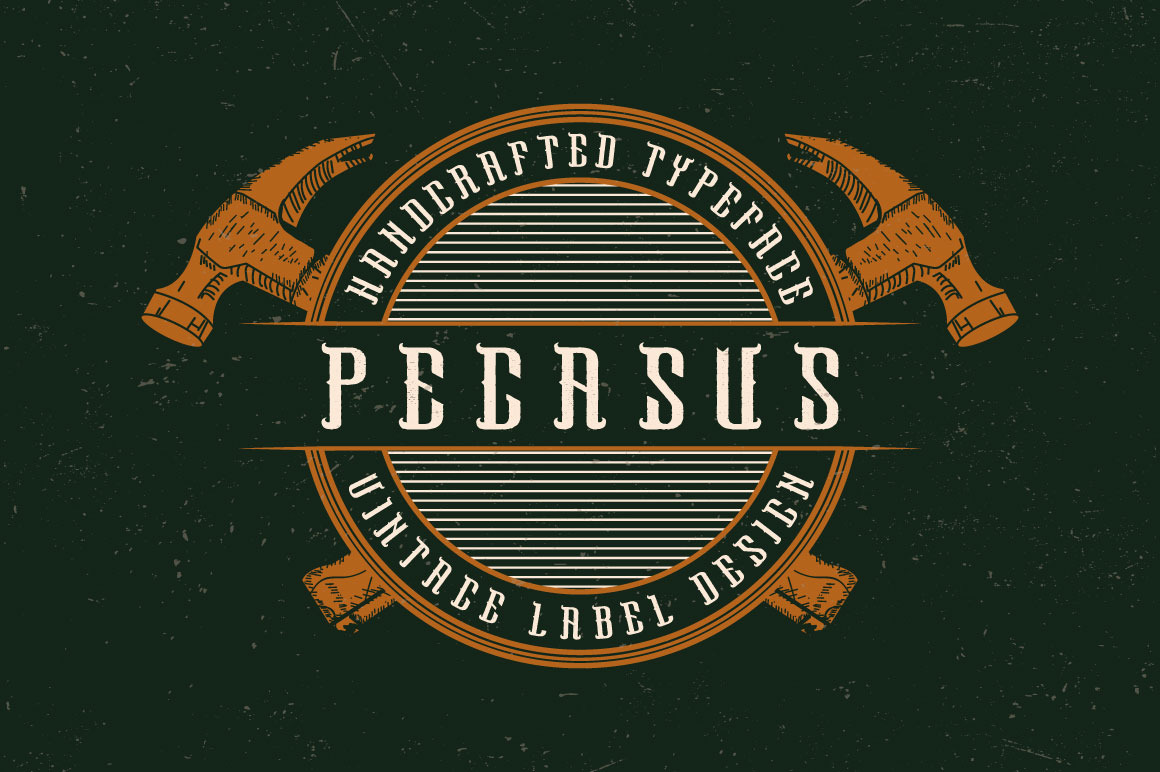
Pegasus label font
Introducing a vintage label typeface named "Pegasus". It's made in strong and vintage label style. Typeface looks great on any label designs.
- You can mix shadow and light effects as shown at 4th screenshot